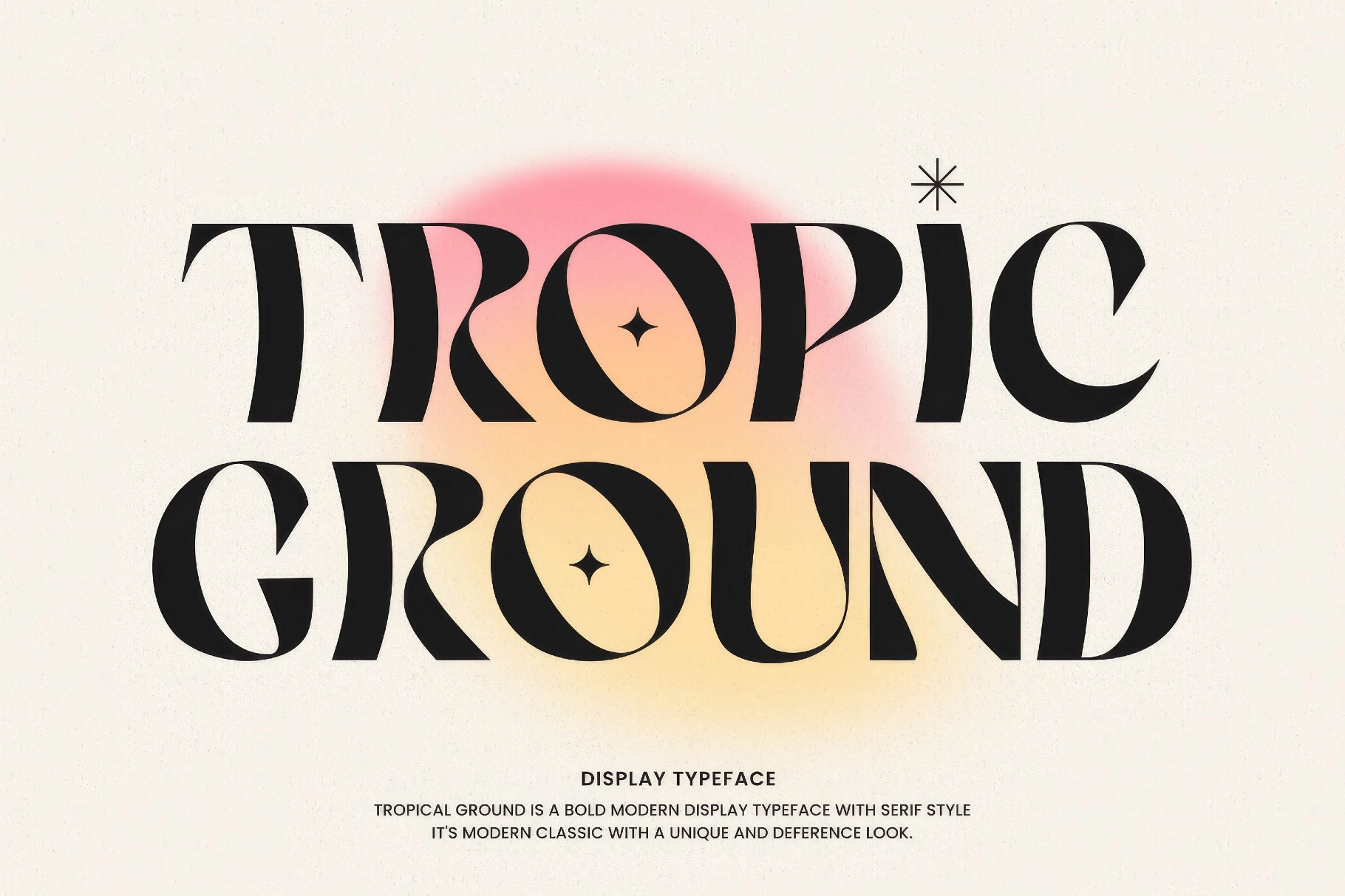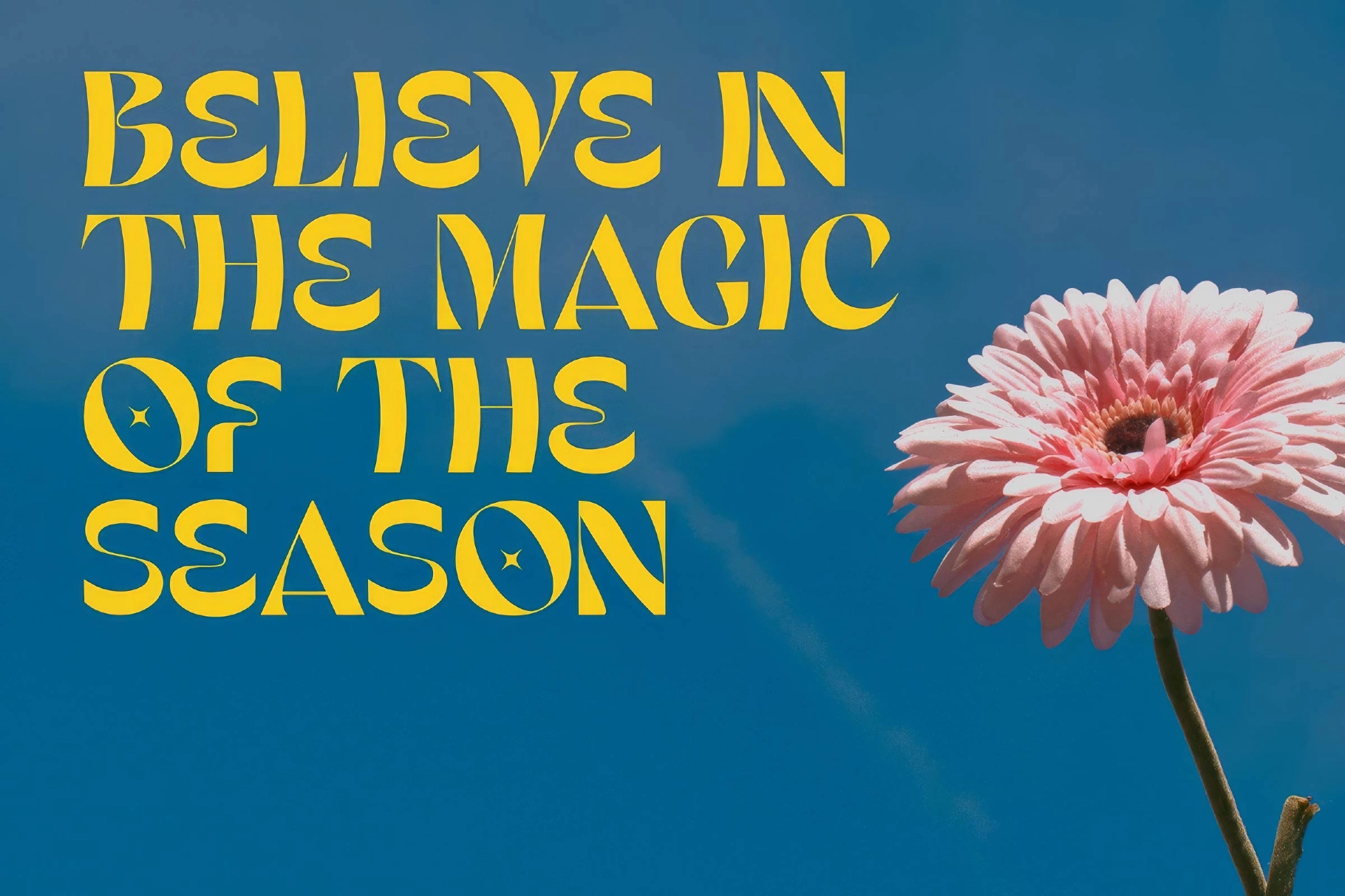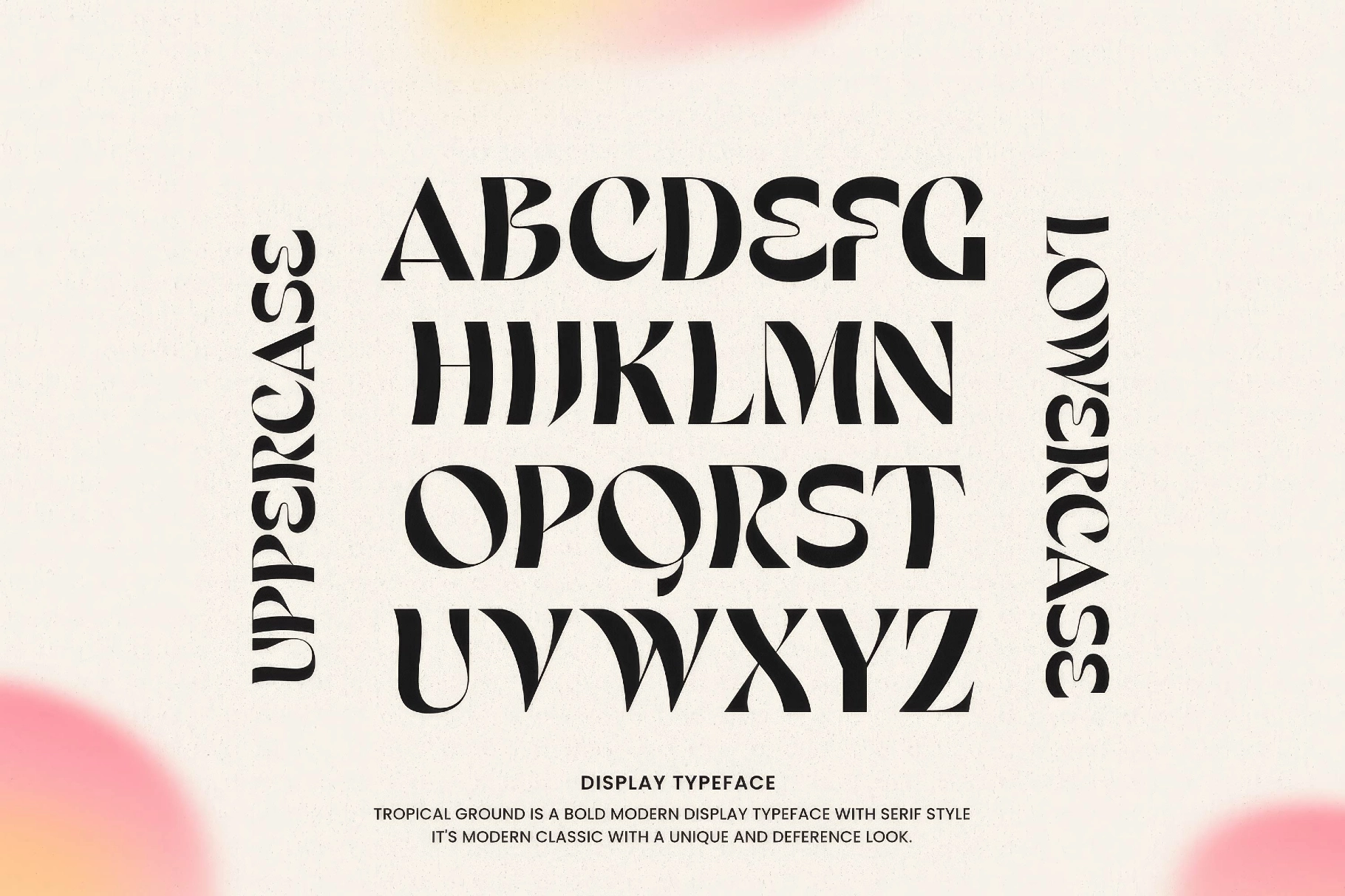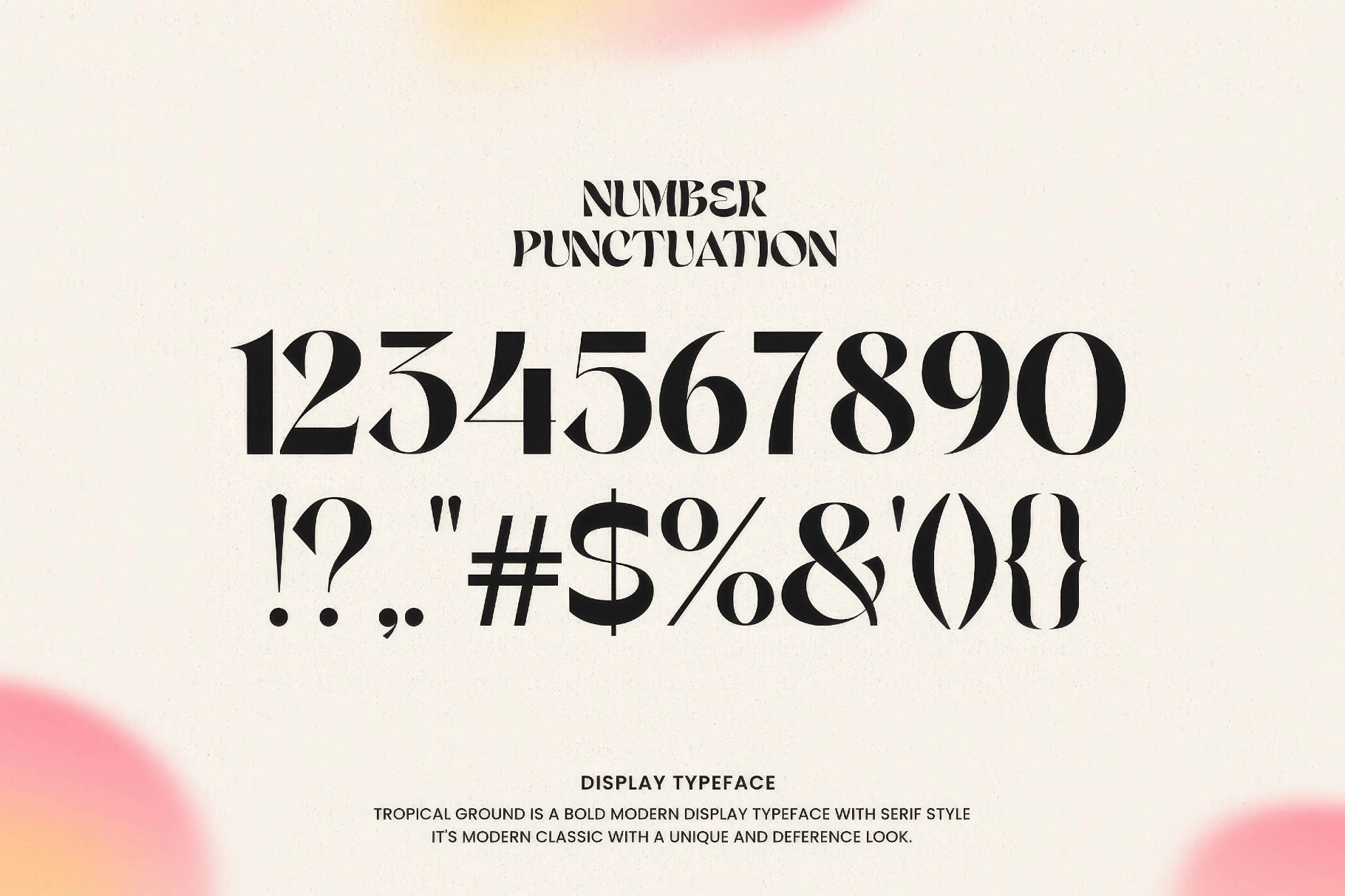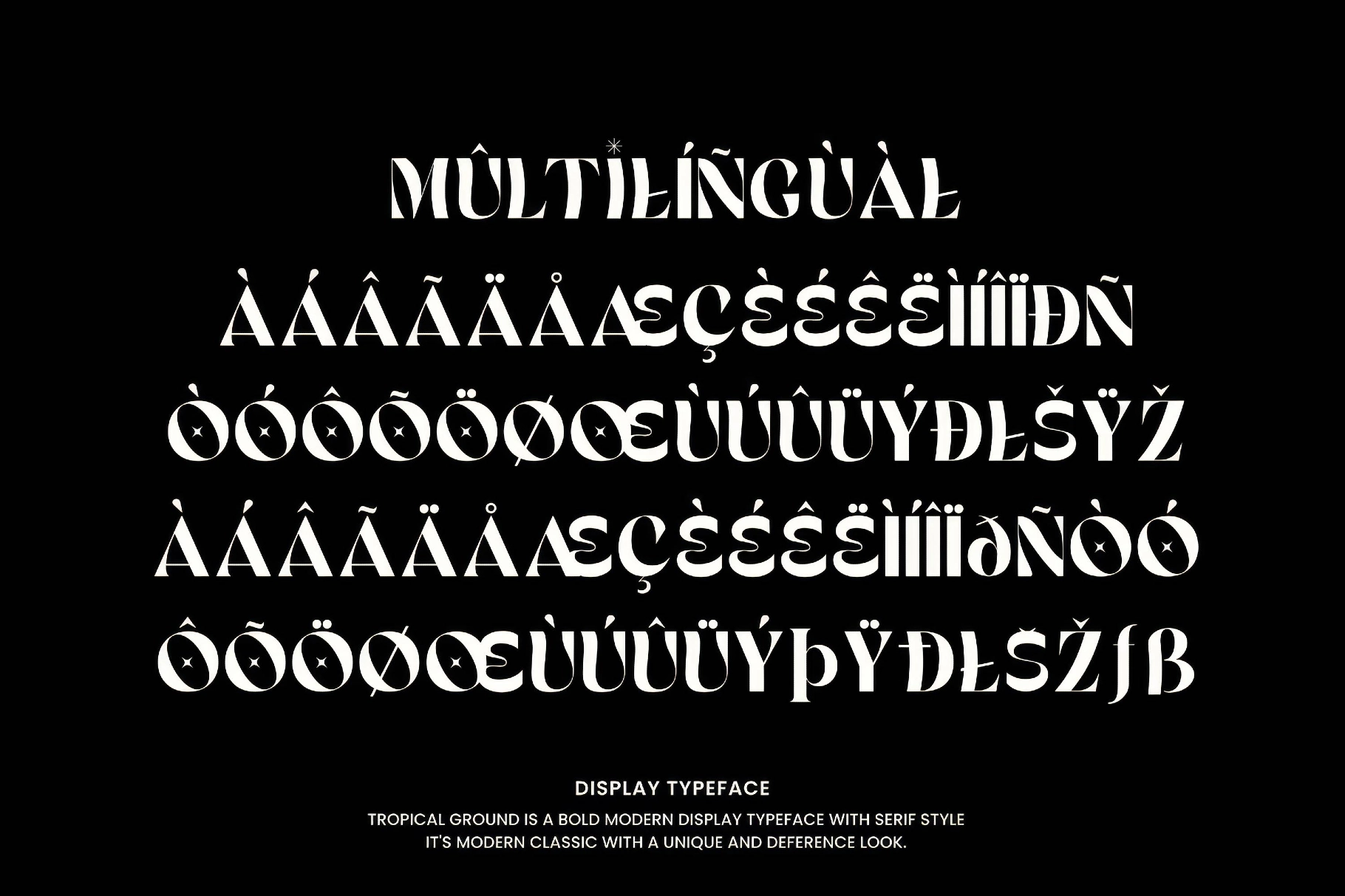
Tropic Ground - Bold Retro Serif Display Font
Tropic Ground pairs dramatic thick-thin contrast with flared, bracketed serifs and a tight, condensed rhythm that pulls the letterforms close together — a bold retro display serif built for headlines that want to take over the page. Star-shaped sparkles sit inside the rounded counters and above the dotted i, adding a playful ornament to an otherwise confident, architectural letter construction.
The font holds its full character in large sizes and works best in short, punchy settings instead of dense paragraphs. Use it for logo lockups, editorial headlines, magazine mastheads, clothing branding, product packaging, poster titles, wedding invitation lettering, album covers, social banners, and text overlays for photography.
- Uppercase & lowercase;
- Numerals, punctuation & symbols;
- Fractions, ordinals & superscript numerals;